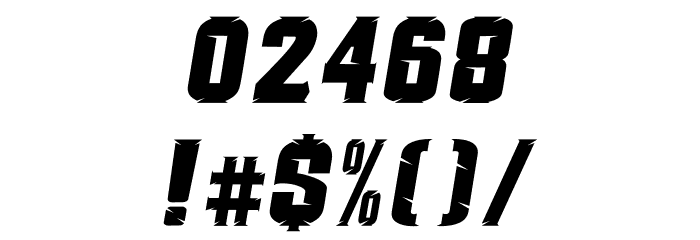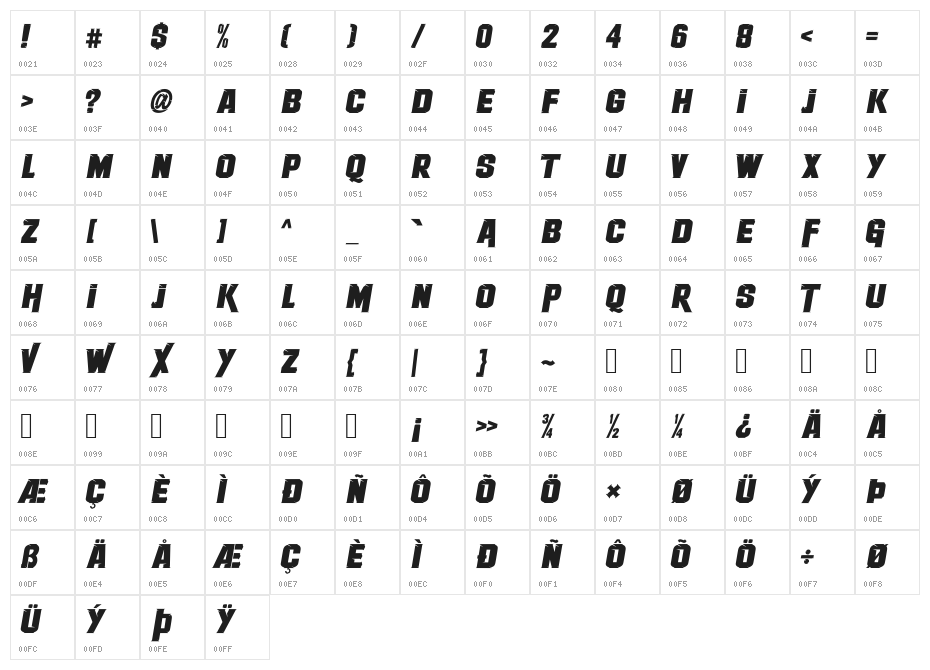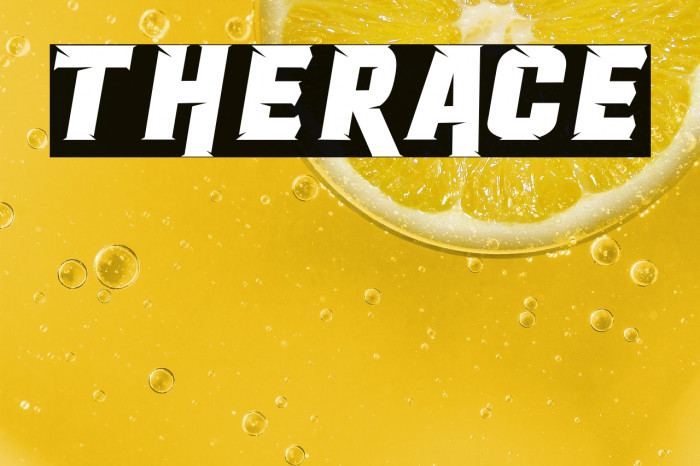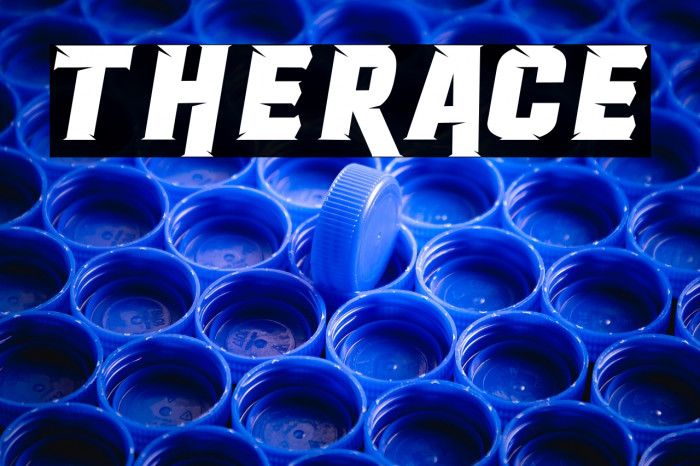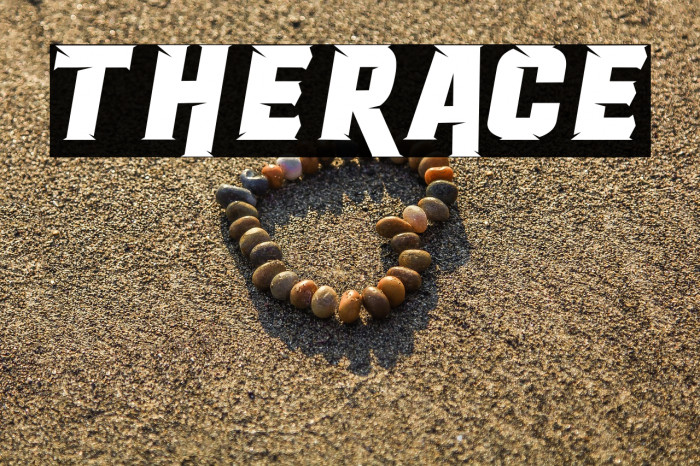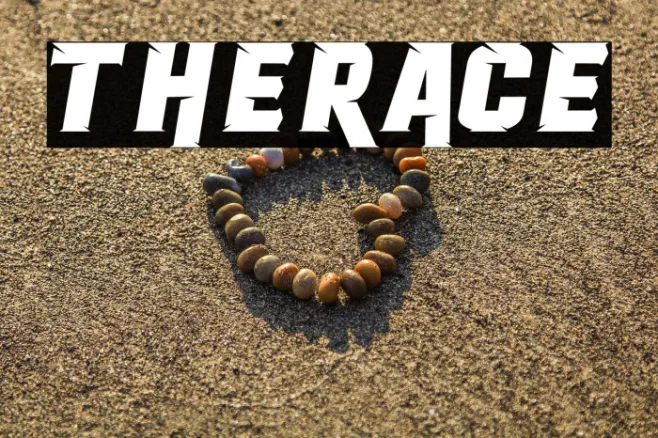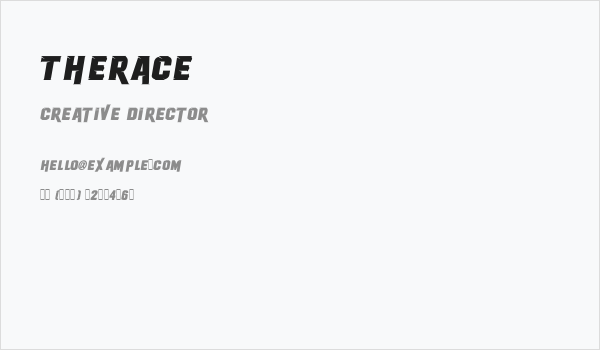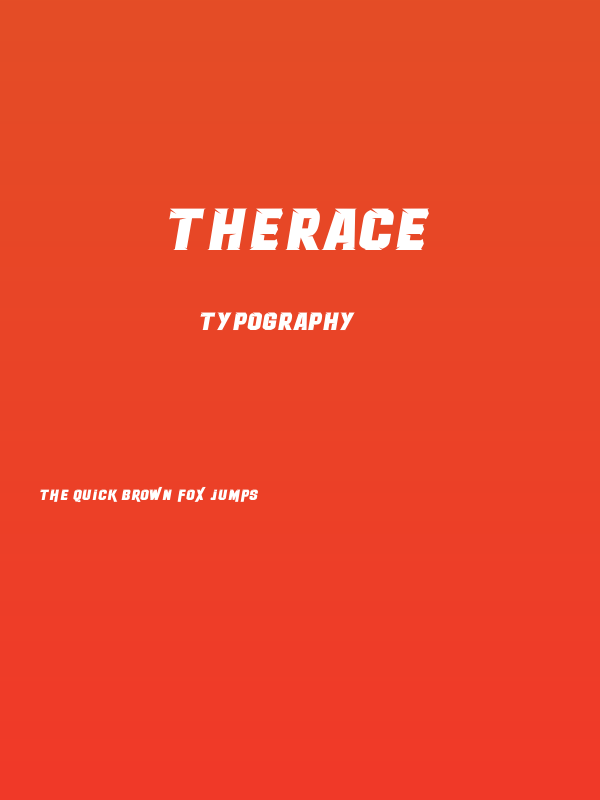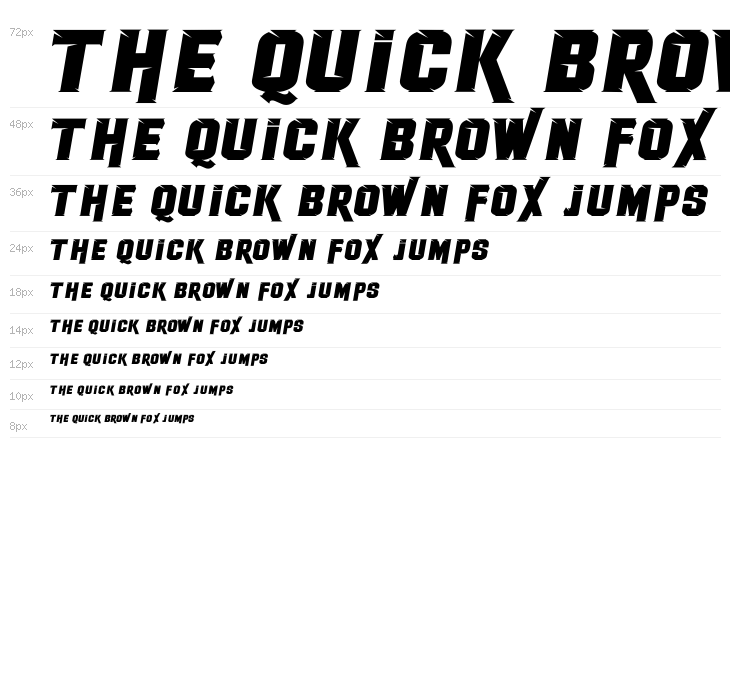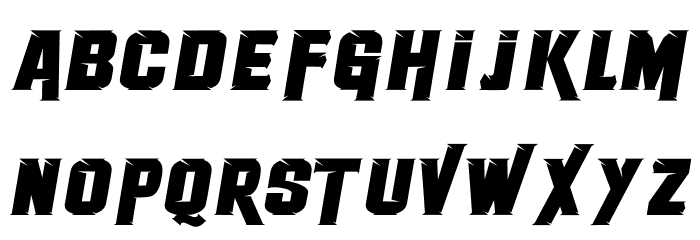
Therace Font
Therace Description
This font is a bold, dynamic typeface with a strong, angular design that conveys a sense of speed and movement. The characters are sharply cut with a slanted orientation, giving them an aggressive and energetic appearance. The uppercase and lowercase letters maintain a consistent style, with thick strokes and sharp edges that enhance their boldness. The numerals and special characters follow the same design principles, ensuring uniformity across the font. This typeface is ideal for projects that require a modern, sporty, or edgy aesthetic.